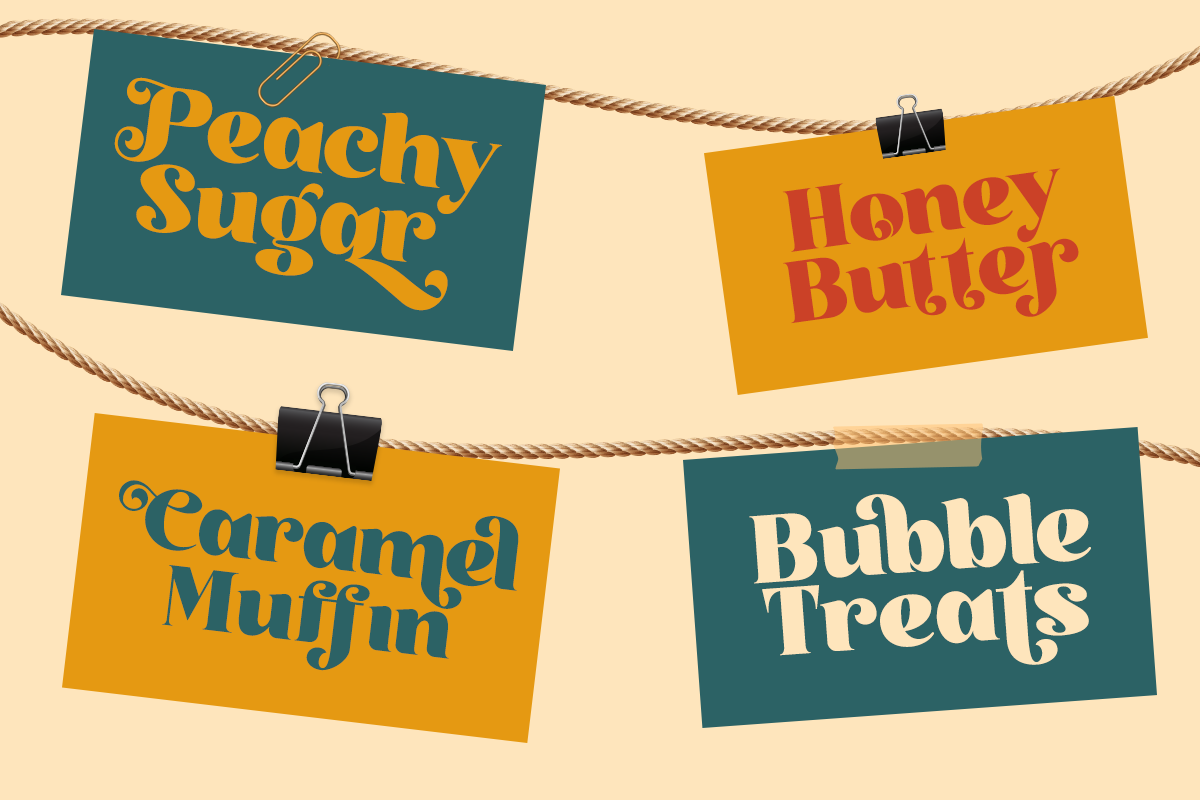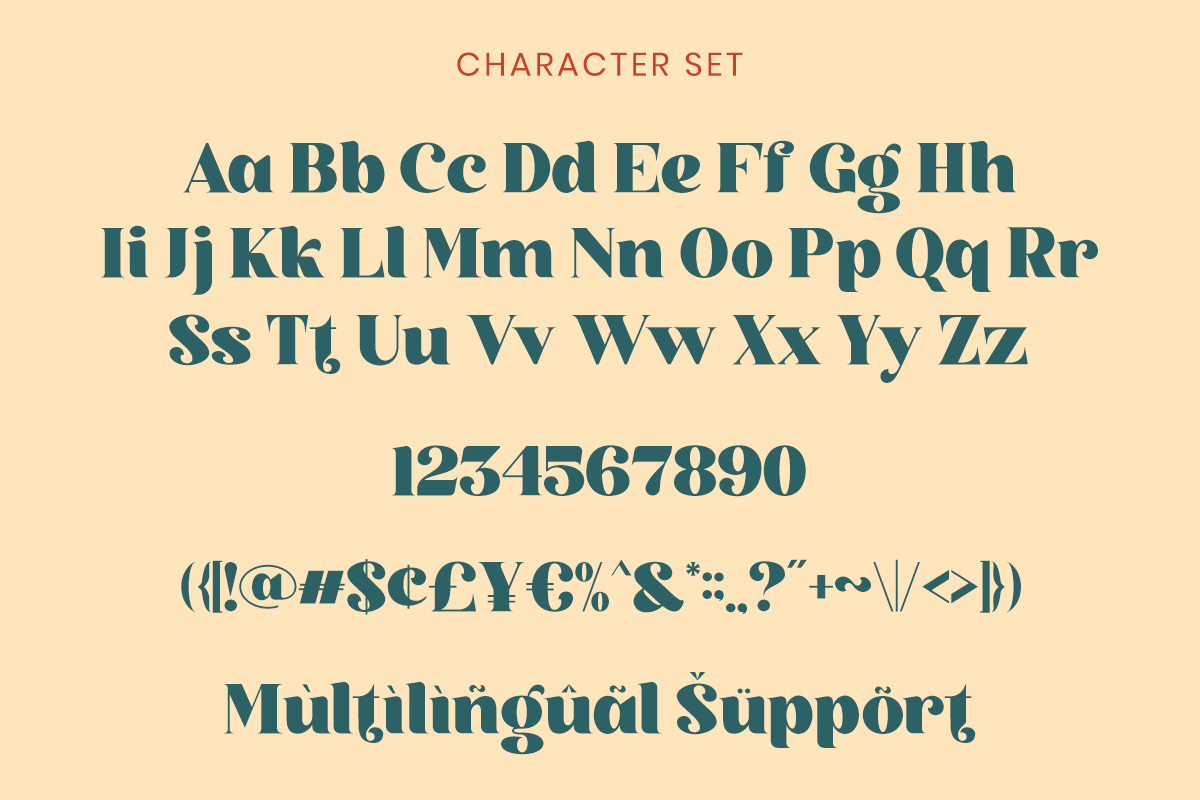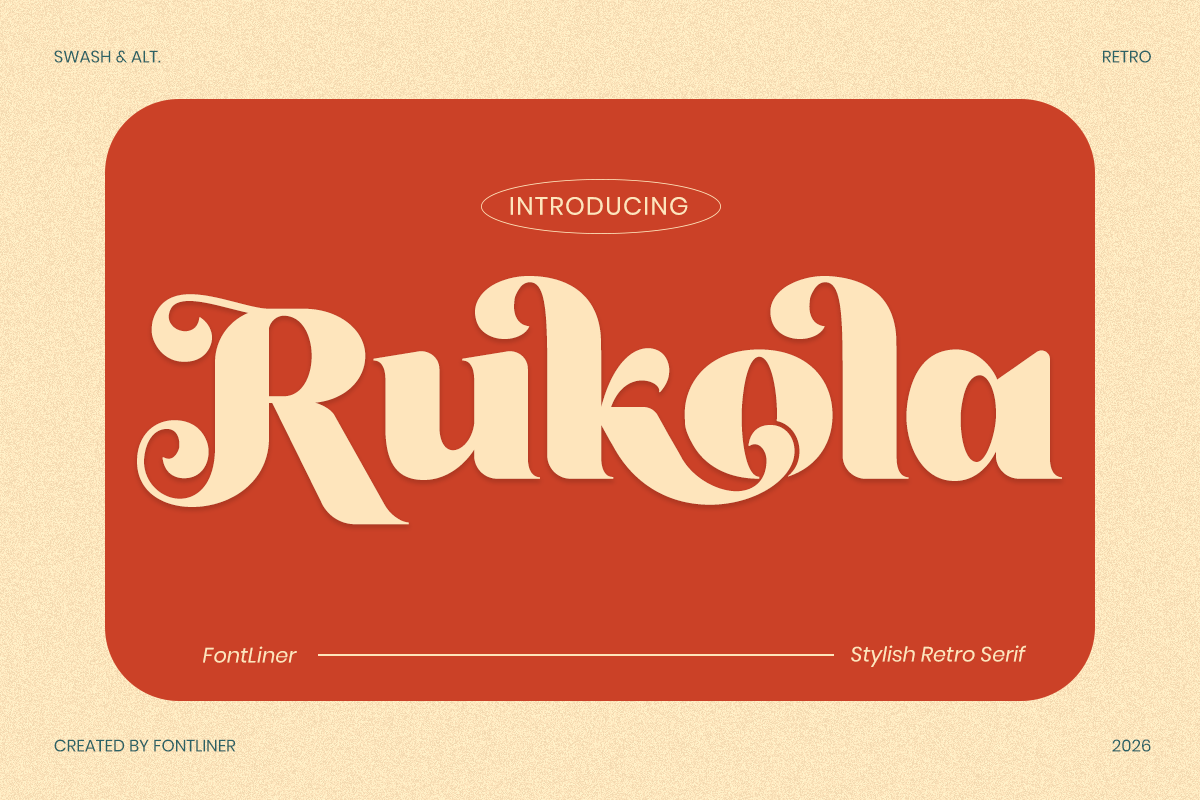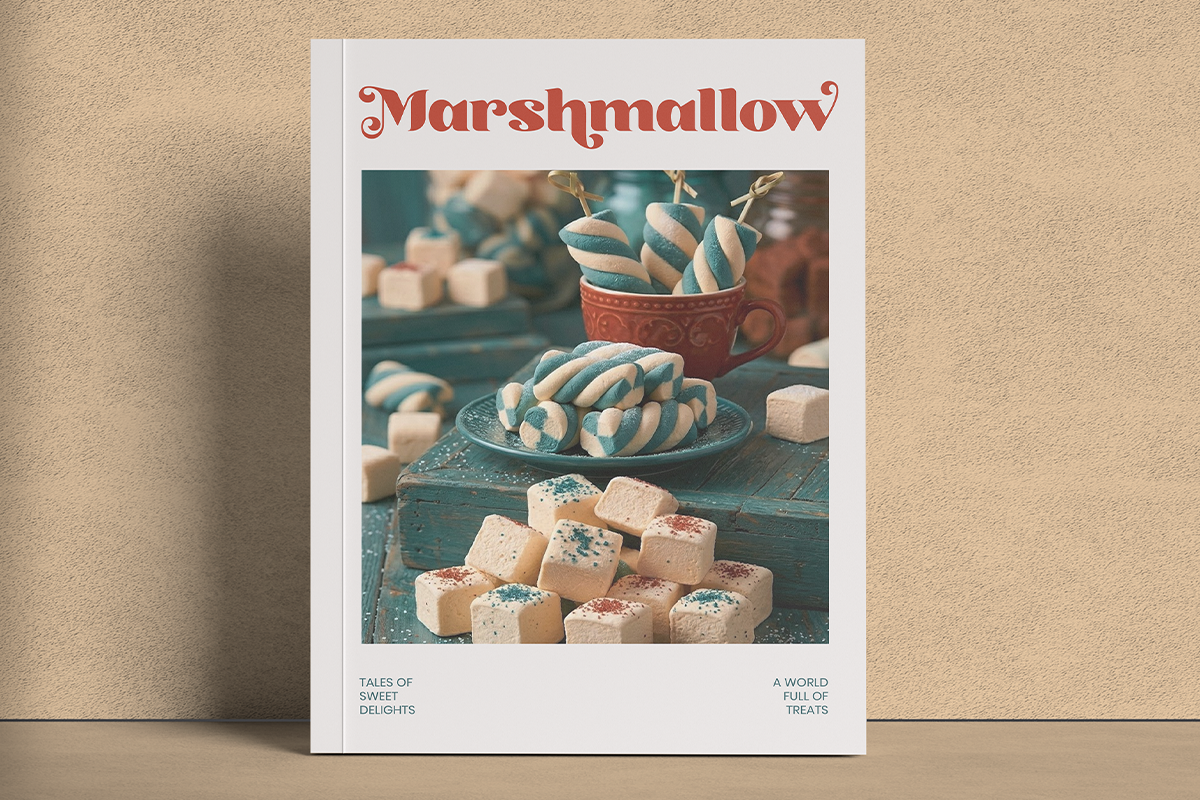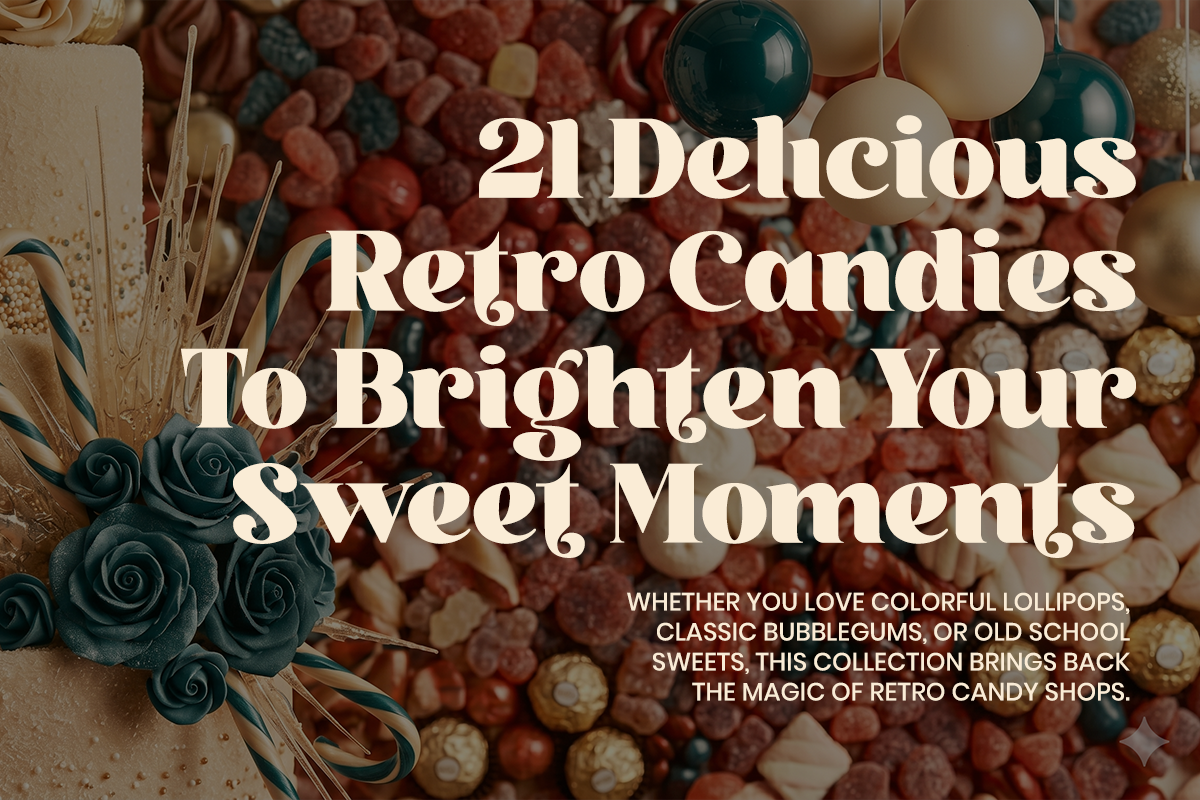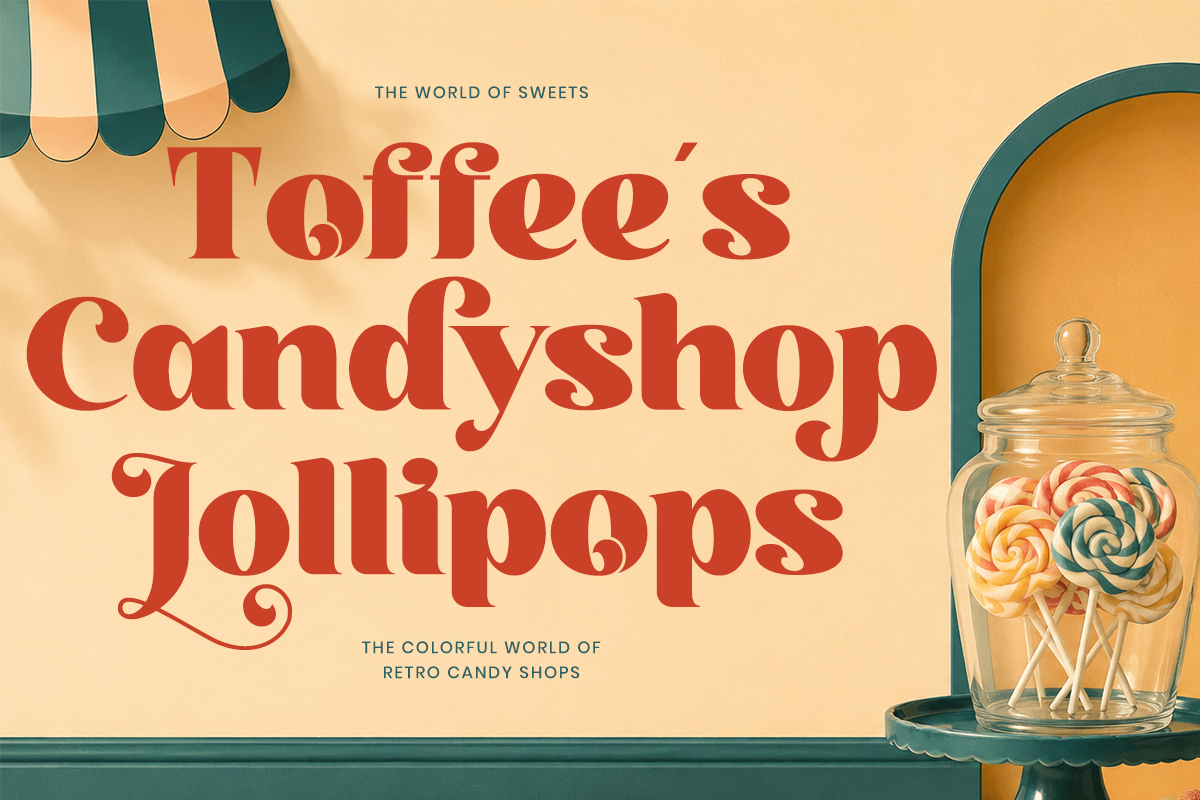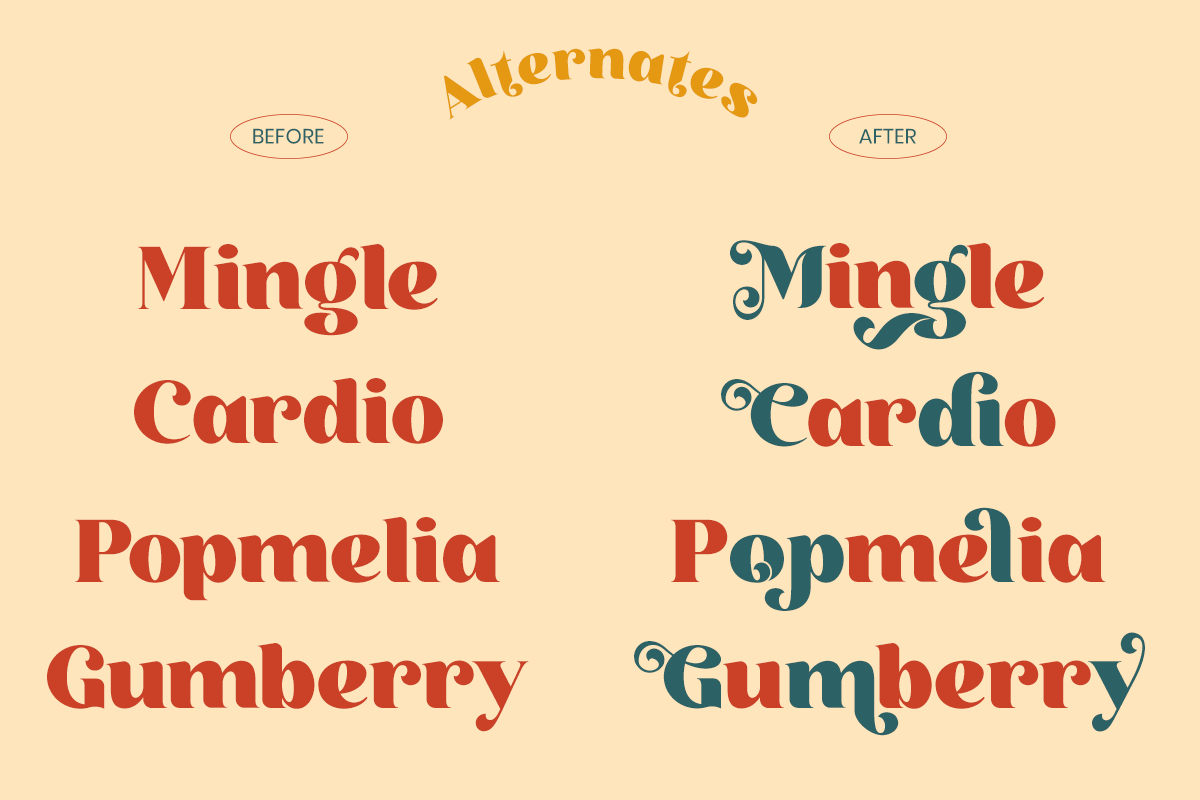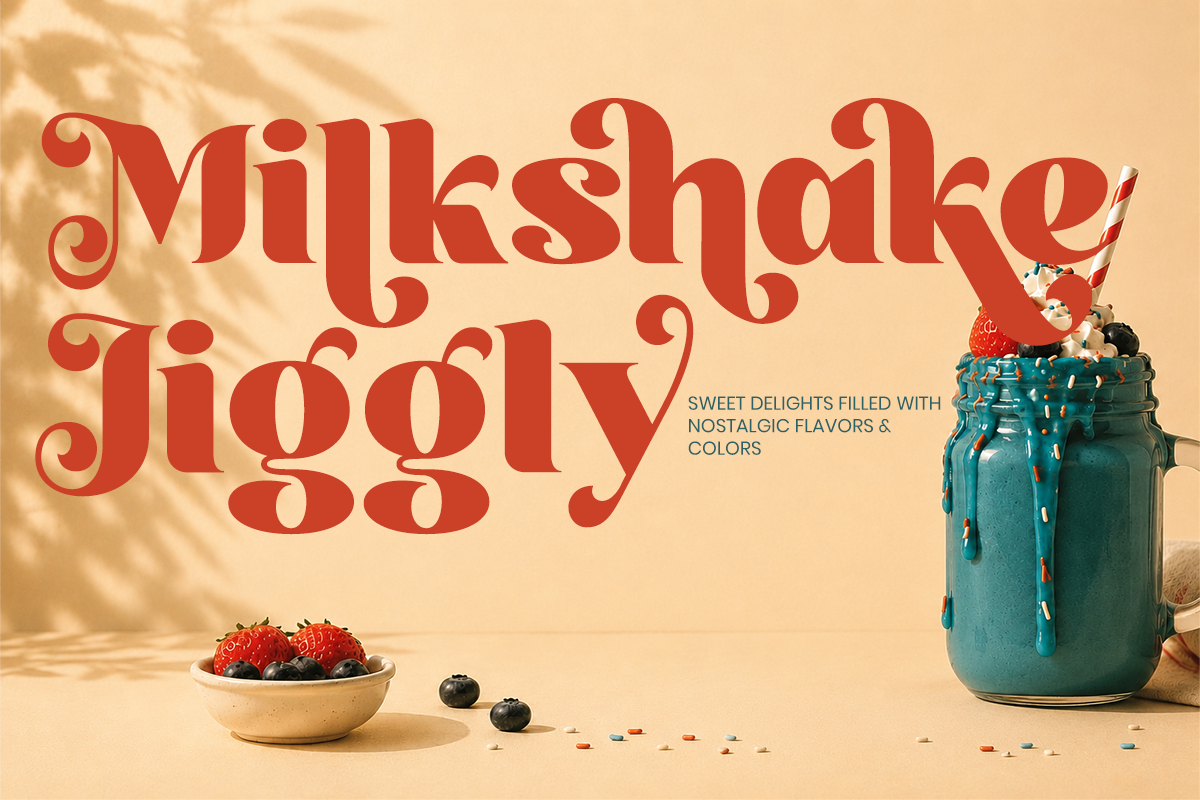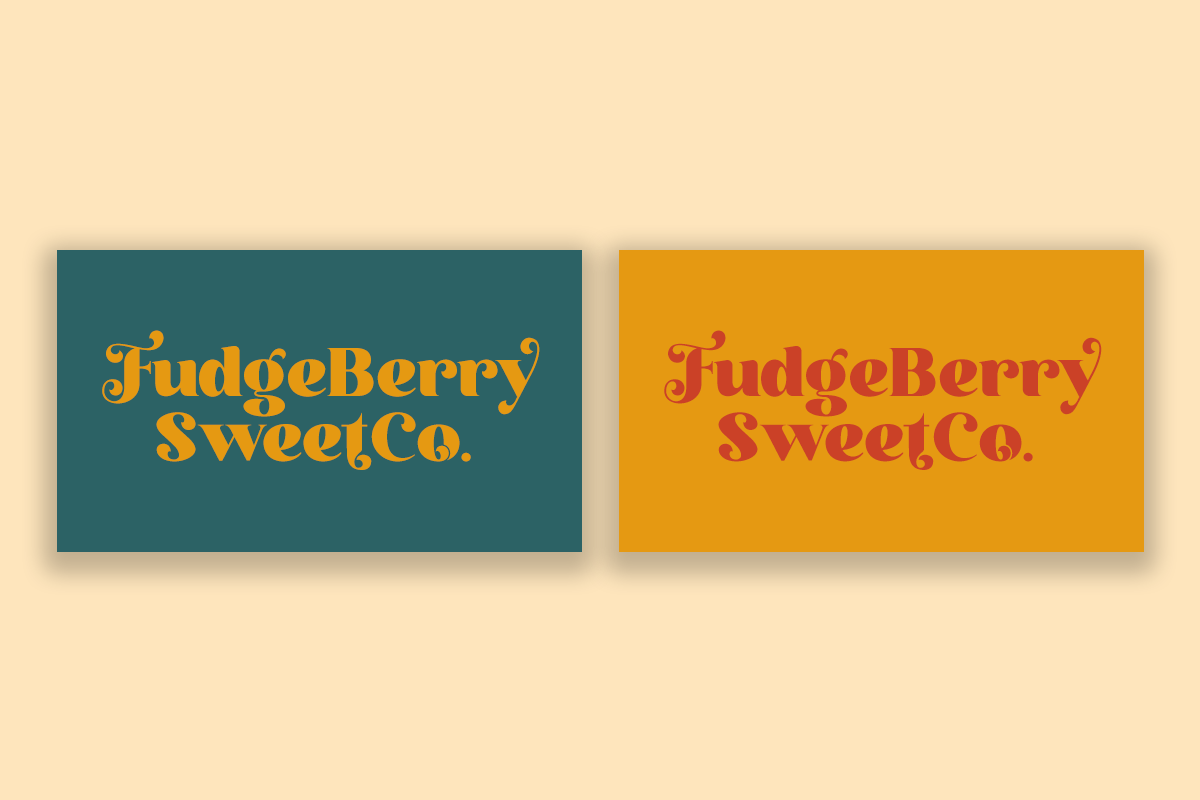
Stylish Retro Serif Font - Rukola
Meet Rukola, a stylish retro serif typeface crafted to bring timeless charm and expressive elegance into your creative projects. Inspired by vintage editorial aesthetics, nostalgic signage, and bold 70s typography, this typeface combines dramatic curves, soft swashes, and distinctive alternates that instantly create a premium retro personality. Perfect for designers seeking a typeface that feels both classic and fashionable.
Rukola works beautifully across branding, logo design, packaging, fashion editorials, café menus, cosmetic labels, posters, social media graphics, album covers, and luxury-inspired product presentations. Its decorative serif construction delivers a bold visual presence while maintaining readability, making it ideal for standout headlines and identity-focused projects that need warmth, character, and memorable impact.
With stylish alternates and swash details, Rukola gives creators the flexibility to build unique compositions with authentic vintage flair. Whether you're designing for boutique brands, retro campaigns, artisan packaging, or nostalgic visual storytelling, this typeface adds elegance, confidence, and unmistakable retro sophistication.
Regular & Italic Style
Stylistic Ligatures